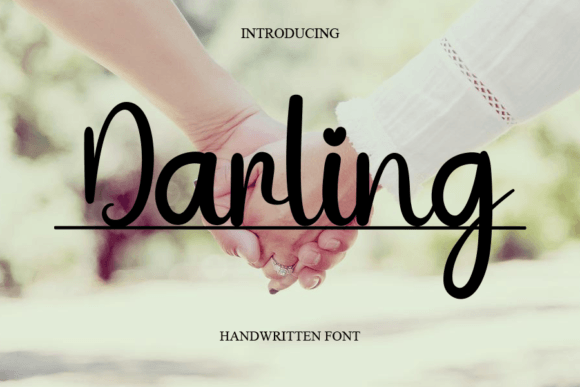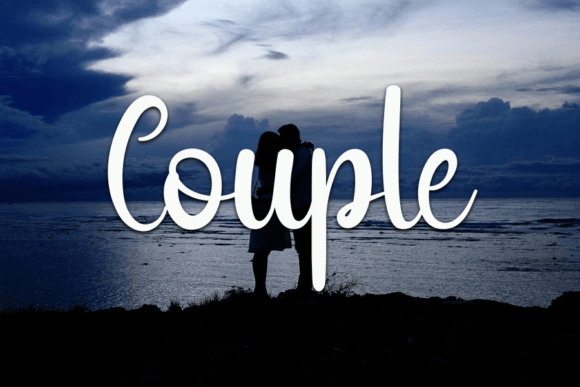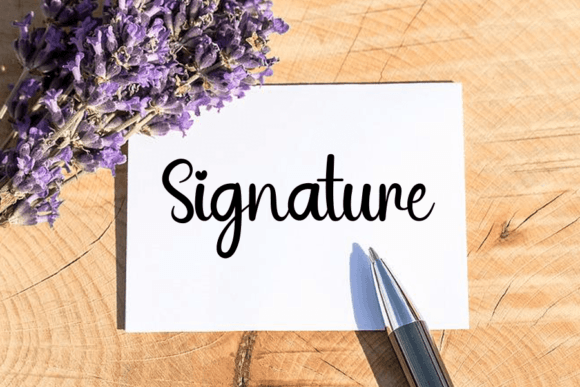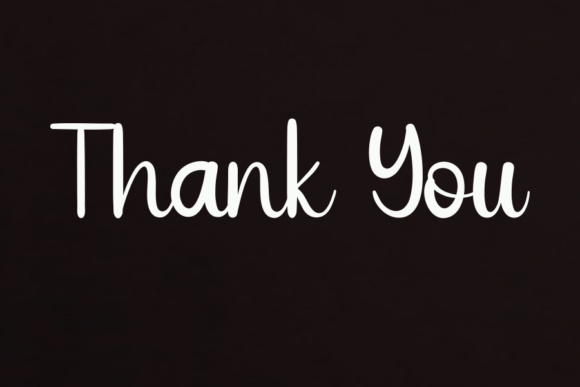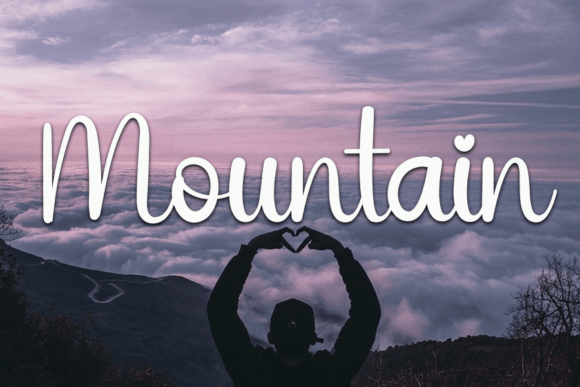
Darling Font
About Darling Font
“Bubbly Font: Sweet and Beautiful Handwritten Elegance
Introducing Bubbly, a sweet and beautiful handwritten font that adds a touch of luxury and charm to your design projects. With characters that dance along the baseline, Bubbly brings a unique and delightful spark to any creative endeavor. This font is more than just a typeface; it’s a design companion that elevates your projects with its sweet and luxurious handwritten elegance.
The flowing characters of Bubbly create a sense of movement and joy, making it ideal for a variety of design applications. Whether you’re working on branding, logotypes, invitations, cards, posters, social media graphics, or any other creative project, Bubbly adapts effortlessly to enhance the aesthetics of your designs.
For branding and logotype projects, Bubbly becomes a distinctive choice, adding a touch of individuality and luxury. The font’s handwritten elegance contributes to memorable and impactful brand identities.
In invitations and cards, Bubbly brings a sense of celebration and joy, making your text visually appealing and emotionally engaging. The font’s sweet and beautiful design is perfect for creating invitations that stand out.
Bubbly’s versatility extends to various digital and print materials, making it suitable for posters, social media graphics, and more. The font’s unique character and luxury spark enhance the overall aesthetics of your projects.
In conclusion, Bubbly is more than just a font; it’s a design companion that brings sweet and beautiful handwritten elegance to your creative toolkit. Let Bubbly be the brushstroke that enhances the beauty of your projects. Embrace the versatility and delightful charm of Bubbly, and watch as it transforms your ideas into visually enchanting experiences.”